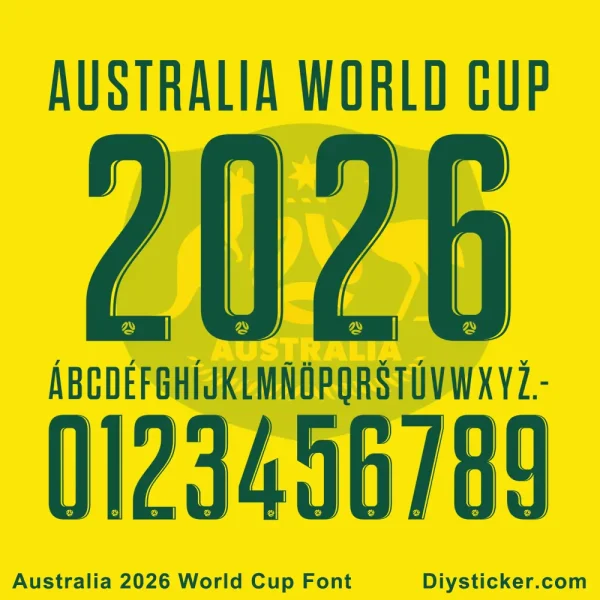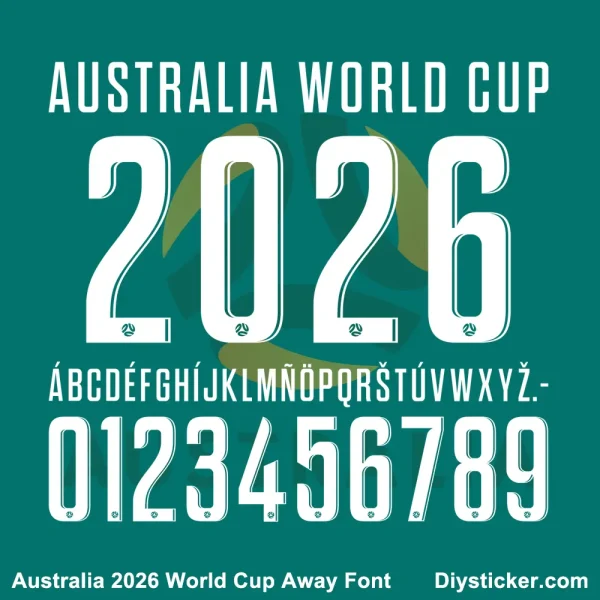
Australia 2026 World Cup Font – Home/Away kits
Elevate Your Kit with the Australia 2026 World Cup Font
Celebrate the Socceroos’ journey on the global stage with the Australia 2026 World Cup Font. This typeface is meticulously crafted to complement the Australian National Team’s 2026 kits, blending modern athletic bold lines with a clean aesthetic that reflects the vibrant spirit of Australian football.
Product Highlights:
2026 Edition Authenticity: Replicates the unique character spacing and thickness used on the Australia 2026 World Cup Home and Away jerseys.
Federation Identity: Each number is optimized to include the official Football Australia crest at the base for 100% authenticity.